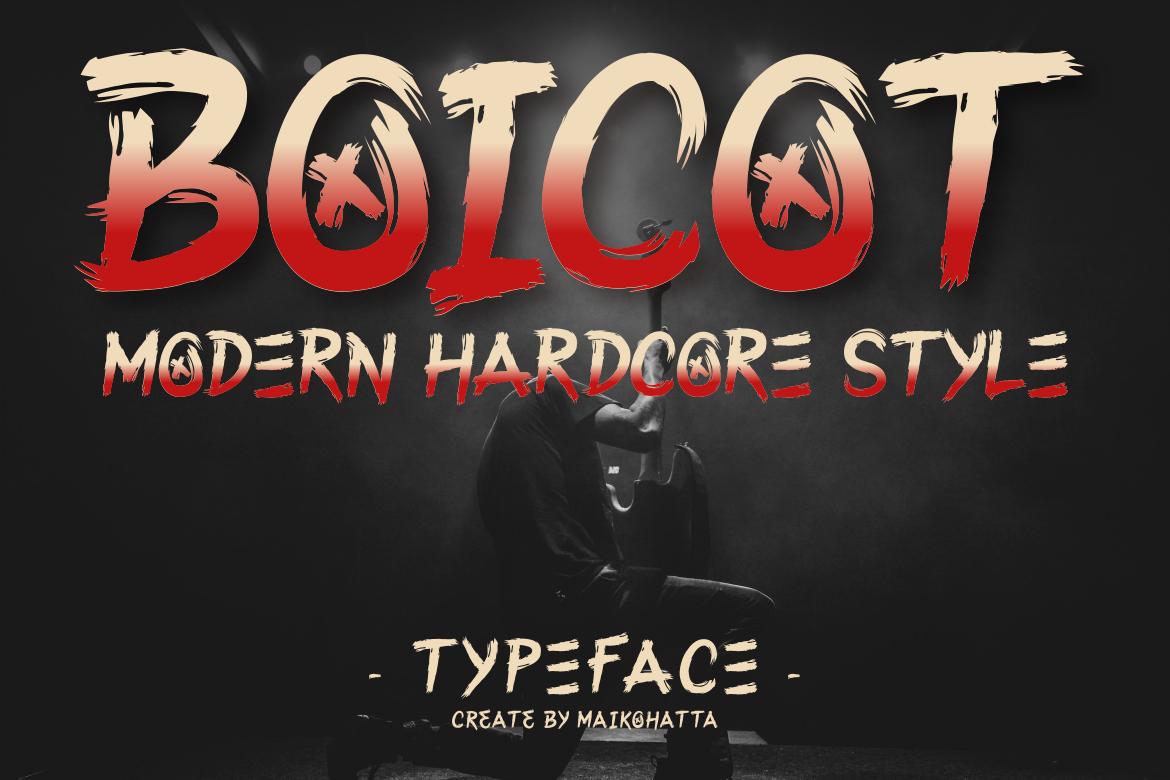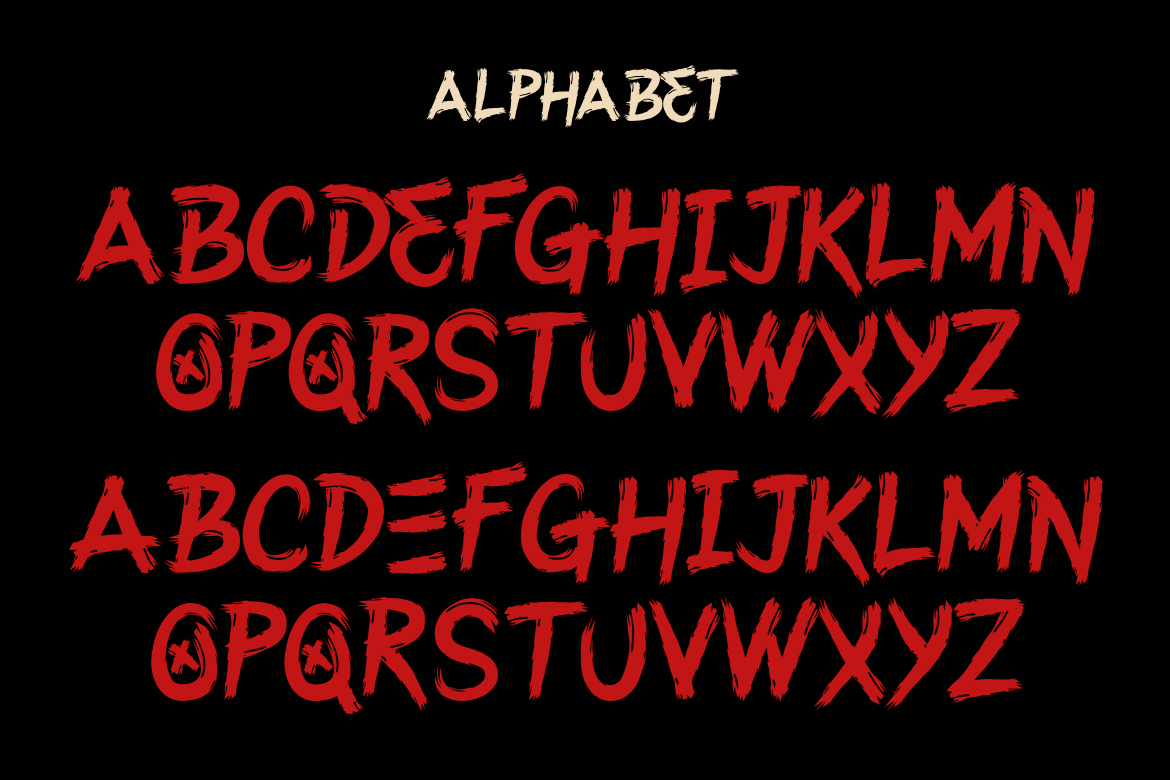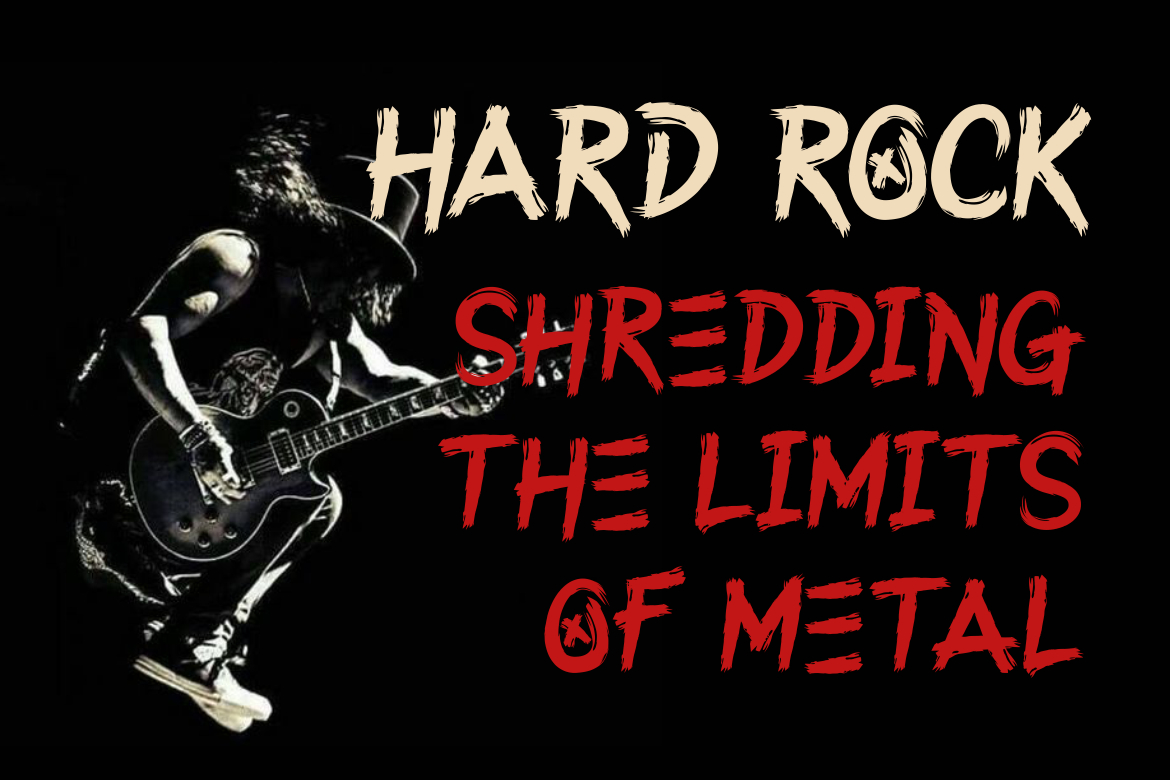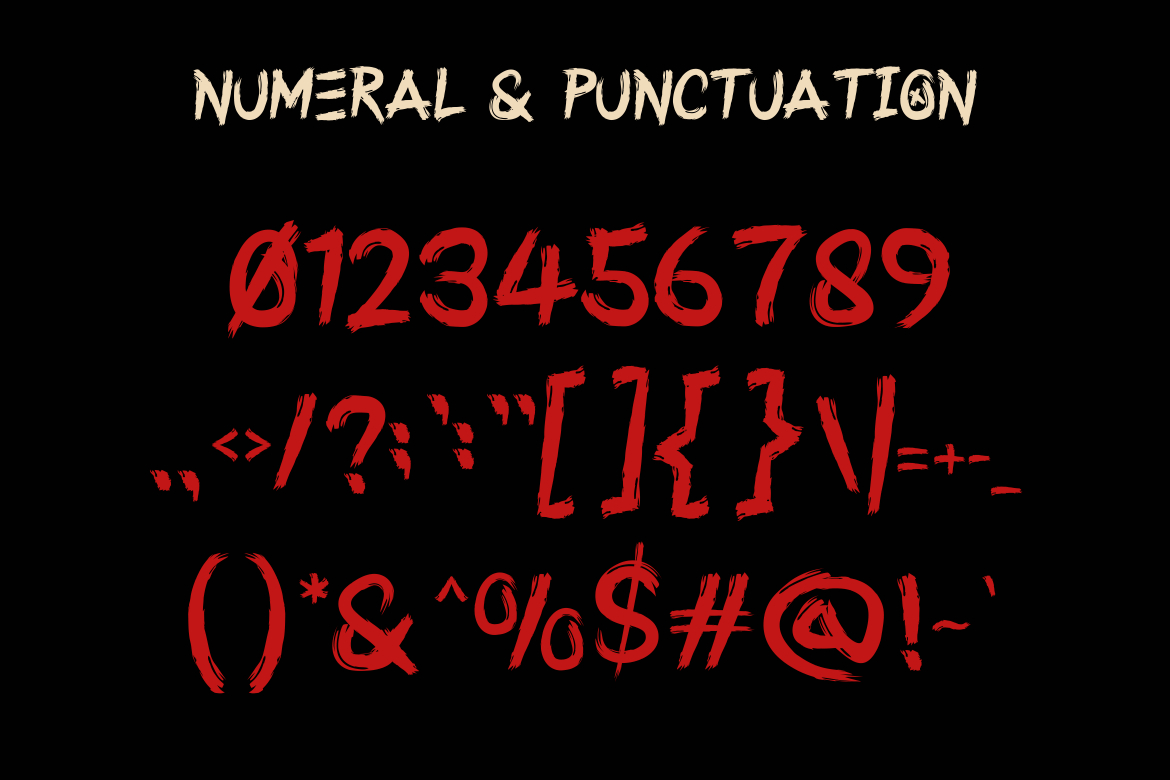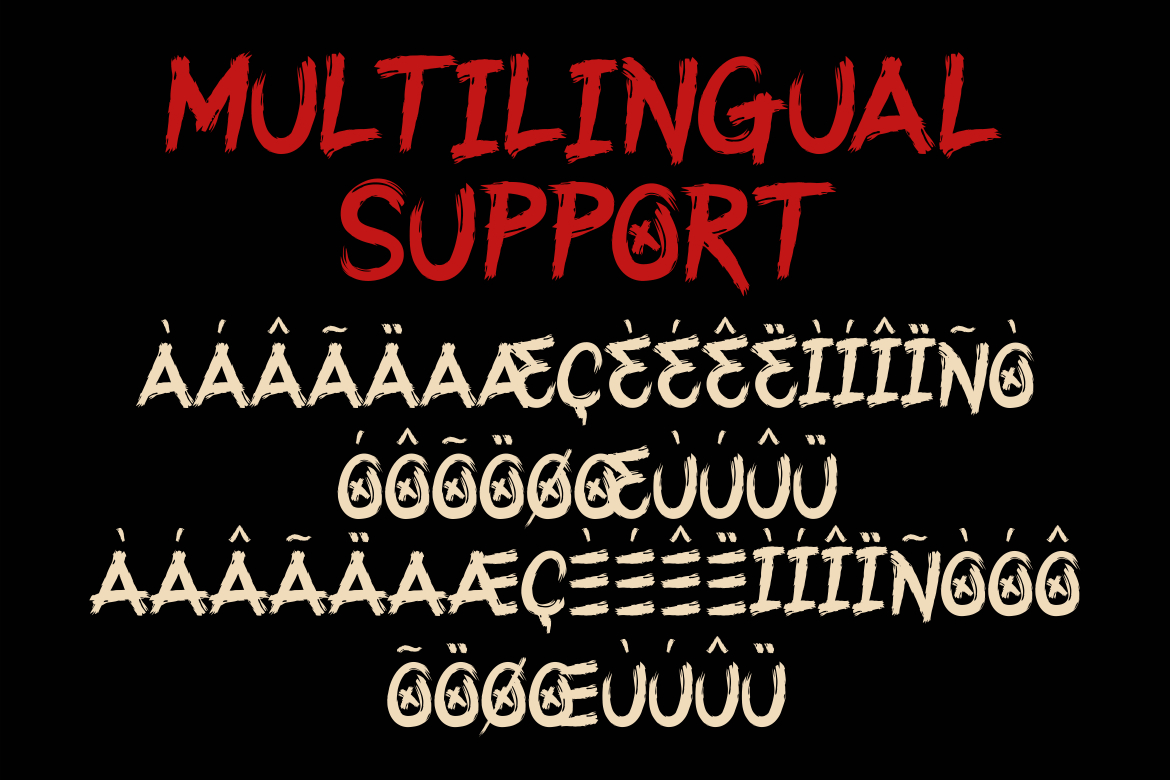
Boicot Font
About Boicot Font
**Boicot** – Modern Hardcore Style
**Boicot** Modern hardcore font is a type of lettering that emphasizes strength, boldness and an aggressive aesthetic in its design. Combining modern elements and influences from hardcore typography styles, this font showcases strong characteristics, sharp lines, and dynamic shapes.